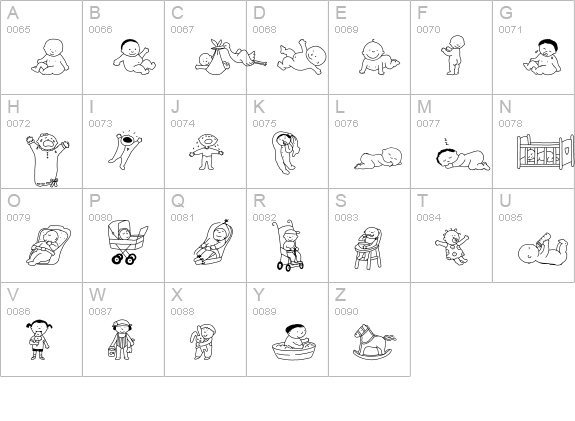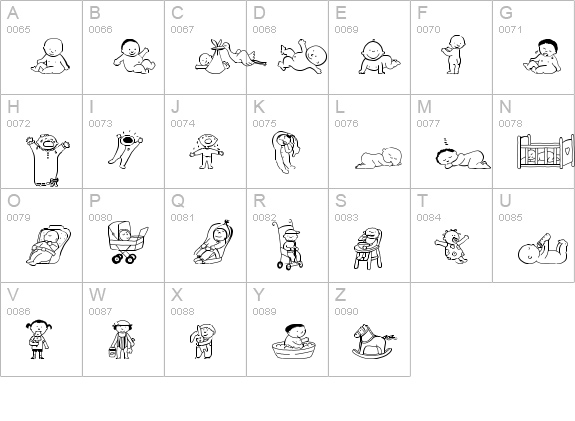
ABArtFonts-BabyBoomOne Font Details
ABArtFonts-BabyBoomOne is a charming and playful font that exudes a sense of innocence and whimsy. With its rounded edges and bubbly appearance, this font is perfect for projects related to children, babies, or anything youthful and fun. The handwritten style adds a personal touch, making it ideal for invitations, greeting cards, posters, and more. The best part is that ABArtFonts-BabyBoomOne is available for free download at FontsMarket.com. This means you can easily add this delightful font to your collection without any cost. Don't miss out on the opportunity to enhance your designs with the adorable ABArtFonts-BabyBoomOne font today!